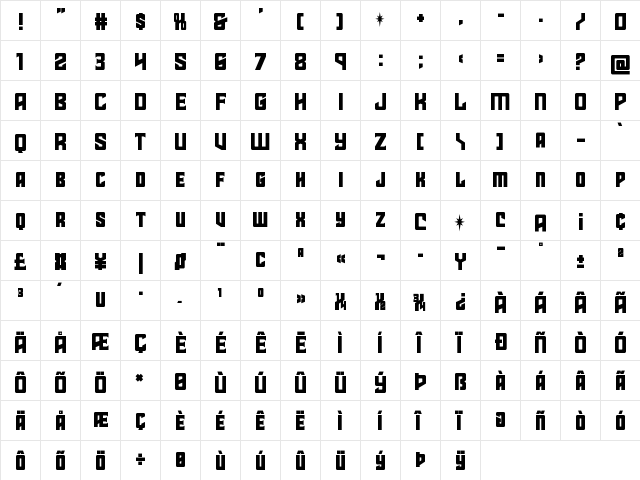
Star Guard Drop-Case Regular
Design Context for Star Guard Drop-Case Typeface
Star Guard Drop-Case takes a measured approach to typography — its balanced proportions and neutral character make it a reliable workhorse for both digital and print work.